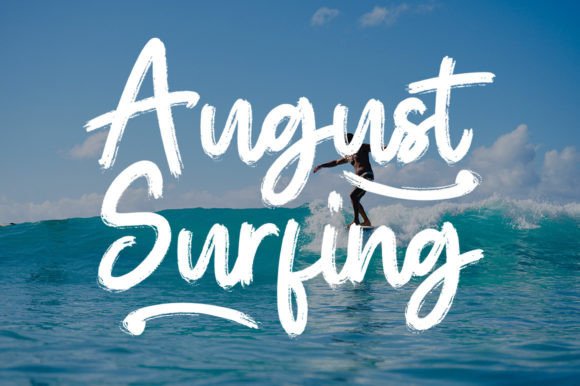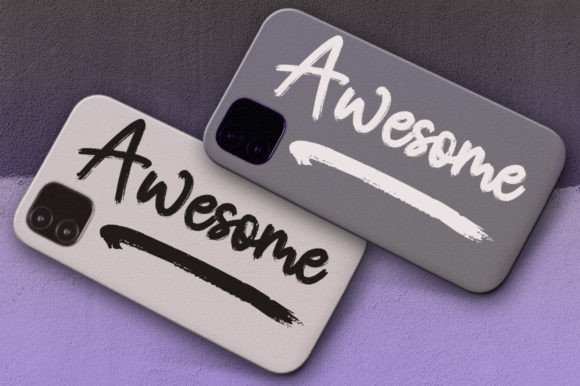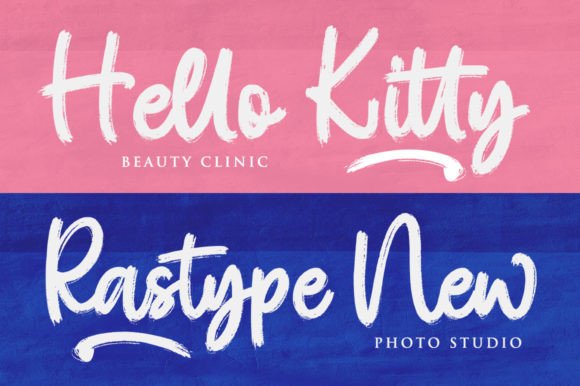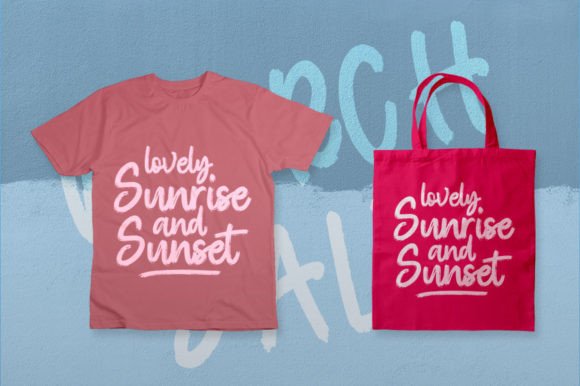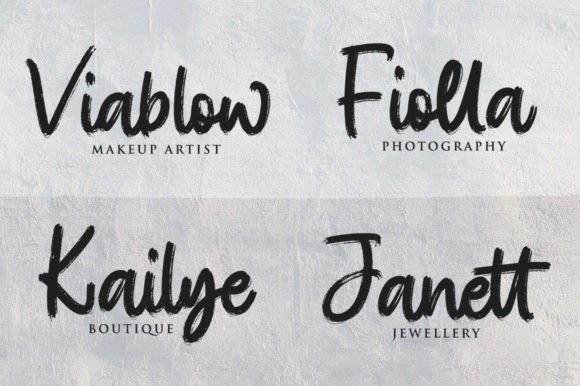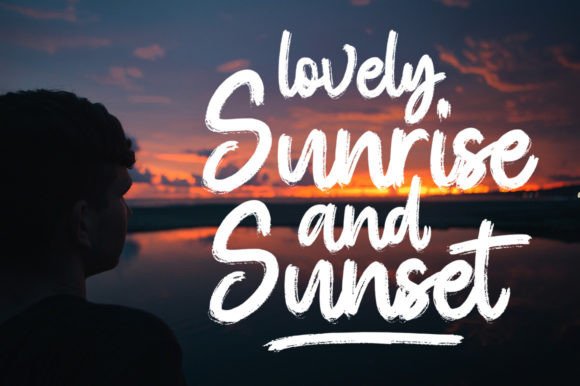
Introduction to Rosttaly Font
Have you ever found yourself in the midst of a creative project, desperately searching for the perfect font to bring your vision to life? The blank page stares back at you, and all you can think about is the elusive ‘wow factor’ that will set your design apart from the rest. For designers, finding that perfect font can be a game-changer, elevating an ordinary design to an extraordinary one.
Enter the Rosttaly Font, a textured brush font that embodies the essence of natural handcraft. With its unique combination of underlines, ligatures, and glyphs, this font is sure to add a touch of personality to your designs. Whether you’re working on a clothing label, an invitation, or a book title, the Rosttaly Font is the perfect design resource to take your project to the next level.
Not only is the Rosttaly Font a high-quality design resource, but it’s also free to download, making it an accessible addition to any designer’s toolkit. With its transparent background and PUA encoding, you can access all of the glyphs and swashes freely, giving you the creative freedom to experiment and push the boundaries of your design.
Key Features of Rosttaly Font
- Unique, modern design ideal for creative projects requiring a high-quality font.
- Transparent background, allowing for easy customization and versatility in your creative project.
- High-resolution design, suitable for both digital and print applications, ensuring crisp and clear typography.
- Font size: scalable, with a recommended minimum size of 12 points for optimal readability.
Honest Review: Rosttaly Font
I recently came across the Rosttaly Font, and I’m excited to share my thoughts on this design resource. As a designer, I’m always on the lookout for high-quality fonts that can elevate my creative projects.
One of the things that stands out about Rosttaly Font is its versatility. It’s a great choice for a wide range of design projects, from brochures to website headers.
Here are some of the things that work well for Rosttaly Font:
- ✨ High-quality design: The font is well-designed and visually appealing.
- ✨ Transparent background: The font’s transparent background makes it easy to use on different colored backgrounds.
However, there are some limitations to keep in mind:
- ⚠️ Limited font styles: The Rosttaly Font only comes in a few different styles, which may not be suitable for every design project.
- ⚠️ Not suitable for small text: The font can be difficult to read when used for small text sizes.
Overall, I think the Rosttaly Font is a great addition to any designer’s toolkit. While it may not be perfect, its high-quality design and free download make it a great choice for creative projects.
Tips for Getting the Most Out of Rosttaly Font
Use a transparent background to make your design stand out. Experiment with different font sizes and styles to create a visually appealing effect.
The Rosttaly Font is perfect for a variety of creative projects, including logos, brochures, and social media graphics. It’s also great for creating invitations and other event materials.
Q: Is the Rosttaly Font suitable for high-resolution printing?
Yes, the Rosttaly Font is designed to be high-quality and suitable for high-resolution printing. It’s built with a high level of detail and precision, ensuring that it will look great on both digital screens and printed materials. The font’s high quality also makes it an excellent design resource for creative projects that require a professional finish.